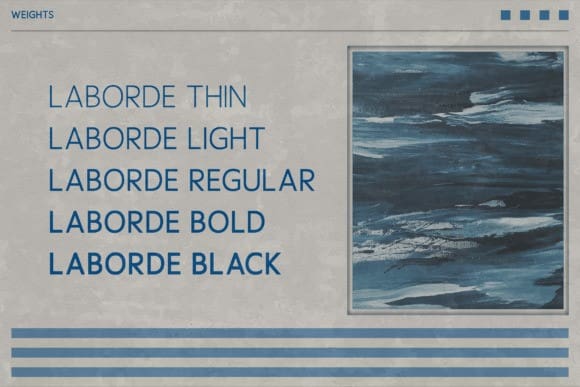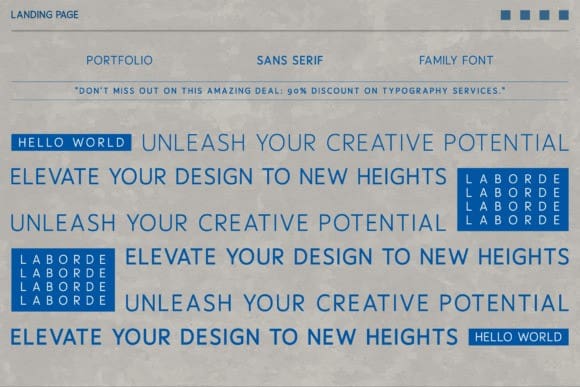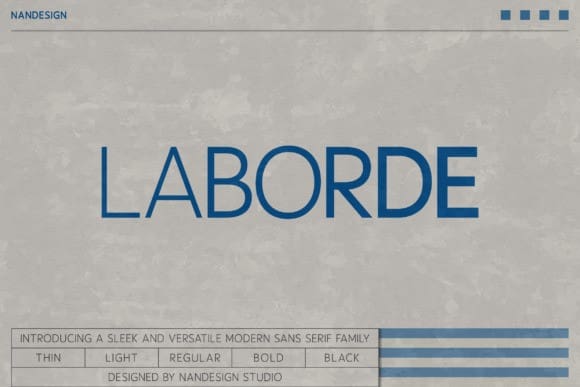
Laborde Font Family
Laborde Font Family — A Masterpiece of Elegance and Minimalism. Meet Laborde Font, a meticulously crafted sans-serif font family that redefines modern design. Featuring 5 distinct weights, it offers unparalleled versatility, seamlessly adapting to projects ranging from magazines and logos to film posters and beyond.
Designed with precision and an eye for detail, Laborde Font strikes the perfect balance between sophistication and simplicity, allowing your creations to exude timeless charm and contemporary luxury. Transform your designs with Laborde Font and unlock a new level of creativity.